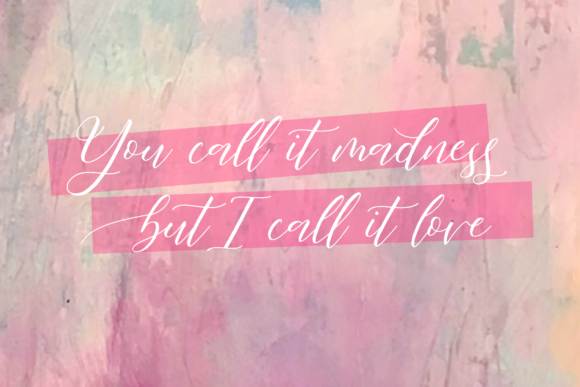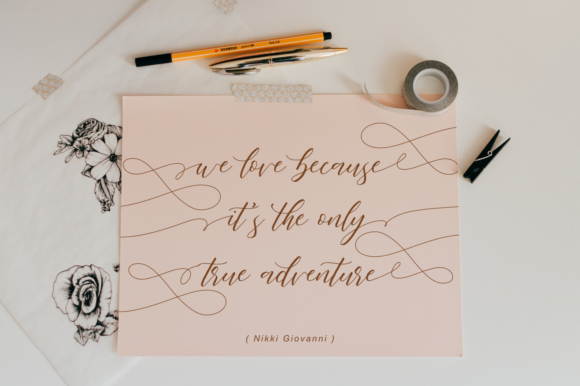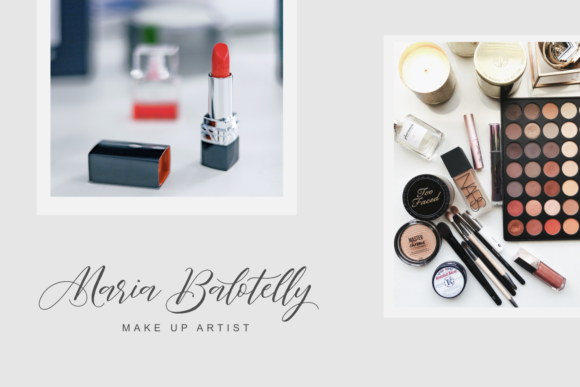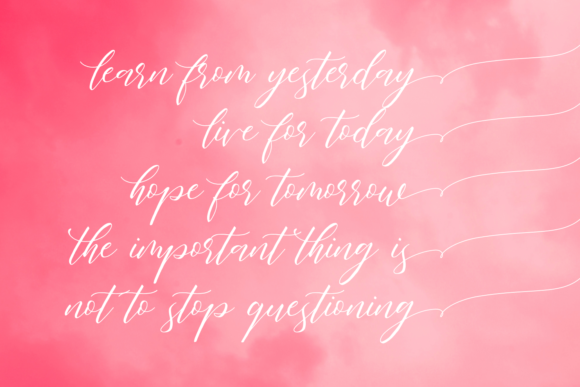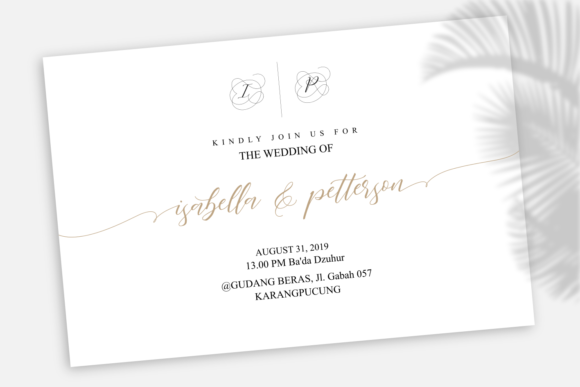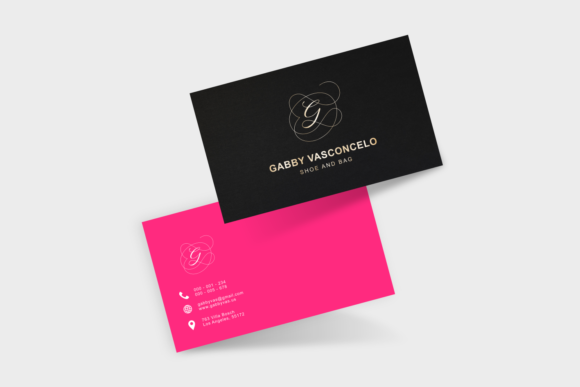
Fathir Font: A Lovely Handwritten Font with a Personal Touch
In the world of typography, fonts play a crucial role in bringing a design project to life. Among the numerous fonts available, Fathir Font stands out for its unique, authentic feel that adds a romantic twist to any design. In this article, we’ll explore the characteristics of Fathir Font, its benefits, and how it can elevate your design projects.
The Story Behind Fathir Font
Fathir Font is a beautiful, handwritten font created with a real brush pen. This distinctive approach gives the font its characteristic jagged lines, making it look like it was written with a personal touch. The font’s authentic feel is a result of its handmade nature, which sets it apart from more conventional, digital fonts.
Key Features of Fathir Font
- Handwritten with a real brush pen: Fathir Font’s unique creation process gives it a genuine, handcrafted feel that is hard to replicate with digital tools.
- Jagged lines for an authentic look: The font’s irregular lines add a touch of personality to your designs, making them more relatable and engaging.
- Romantic twist: Fathir Font’s elegant, cursive style is perfect for designs that require a romantic or whimsical touch.
- Versatile: This font can be used for a wide range of design projects, from wedding invitations and branding materials to blog posts and social media graphics.
Benefits of Using Fathir Font
So, why should you choose Fathir Font for your design projects? Here are some benefits that make it an excellent choice:
- Emotional connection: Fathir Font’s personal, handwritten style helps create an emotional connection with your audience, making your designs more memorable and impactful.
- Unique look: The font’s distinctive jagged lines and authentic feel ensure that your designs stand out from the crowd and avoid the generic look that common fonts can give.
- Ease of use: Fathir Font is easy to read and works well in various sizes, making it a versatile choice for both digital and print designs.
How to Use Fathir Font in Your Design Projects
Now that we’ve explored the characteristics and benefits of Fathir Font, let’s discuss how to incorporate it into your design projects:
- Wedding and event invitations: Fathir Font’s romantic style makes it perfect for wedding invitations, baby shower announcements, and other special event designs.
- Branding and packaging: Add a personal touch to your brand’s identity with Fathir Font, making your packaging and marketing materials more relatable and engaging.
- Blogging and social media: Use Fathir Font to create eye-catching blog posts, social media graphics, and quotes that resonate with your audience.
Tips for Getting the Most Out of Fathir Font
To maximize the impact of Fathir Font, consider the following tips:
- Pair with complementary fonts: Combine Fathir Font with sans-serif fonts for a balanced look that contrasts nicely.
- Experiment with colors: Try different colors to find the perfect match for your design, from soft pastels to rich jewel tones.
- Play with sizes: Use Fathir Font in various sizes to create visual hierarchy and add emphasis to important elements in your design.
Fathir Font is a beautiful, handwritten font that brings a unique, authentic feel to any design project. Its romantic style, jagged lines, and versatility make it an excellent choice for designers and crafters looking to add a personal touch to their work. By incorporating Fathir Font into your designs, you’ll create memorable and engaging projects that resonate with your audience.